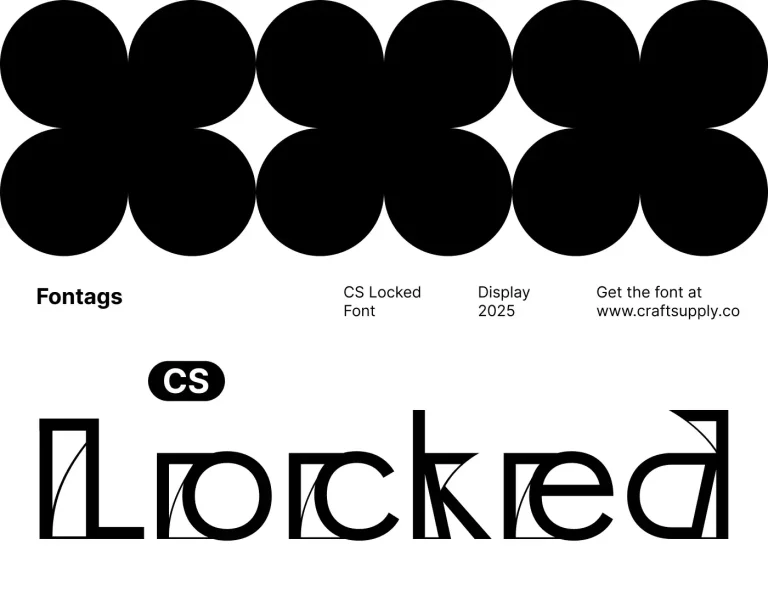
CS Locked
CS Locked is a sophisticated display font that seamlessly blends intricate flourish with Art Deco style, creating an elegant and luxurious impression. This font is characterized by decorative elements, gracefully curved lines, and possibly geometric patterns inspired by the iconic Art Deco…
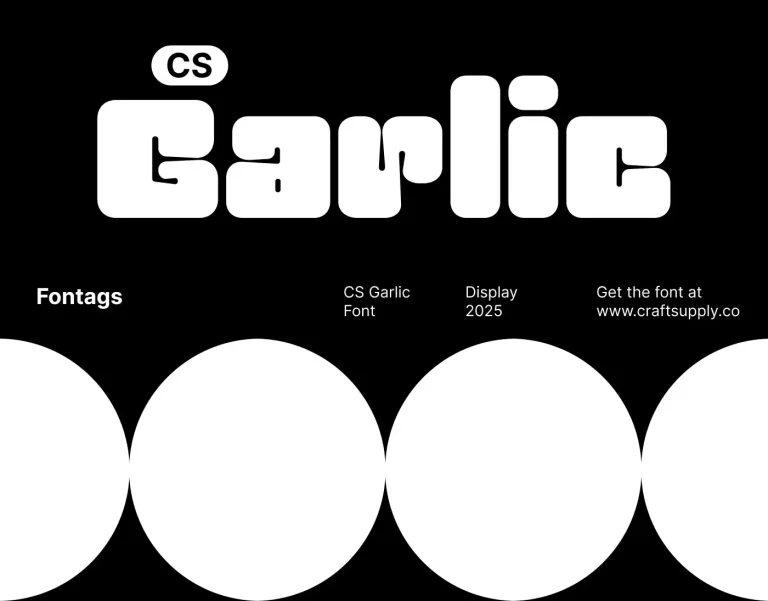
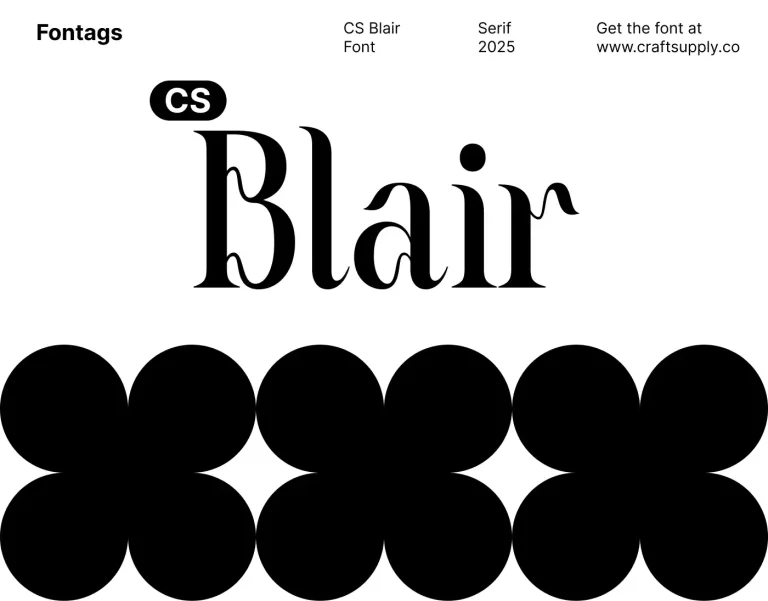CS Garlic
CS Garlic is a vibrant display font featuring bold and funky bubble shapes, designed to inject creativity and cheerfulness into your designs. Its eye-catching characters and prominent bubbles make it perfect for posters, advertisements, and branding that demand strong visual impact. The…
CS Blair
CS Blair is a sophisticated serif font that embodies the timeless beauty of Art Nouveau. With its smooth, curved lines and organic details, this font exudes an elegant impression that enhances any design project. The smooth, flowing lines and intricate details of…
CS Belgia
CS Belgia is a contemporary display font that excels in delivering a professional and clean impression. Featuring sleek and modern letterforms, this font is versatile for a wide range of design applications, including branding, editorial design such as magazines and books, web…
Volney
Volney is a contemporary sans-serif font featuring subtle inktrap details at the ends of its lines, enriching its character and visual appeal. This unique combination makes it an excellent choice for designs seeking a modern aesthetic with distinctive, eye-catching details. The inktrap…
CS Claire Mono
CS Claire Mono is a meticulously designed modern monospaced sans-serif font, meticulously crafted to ensure clarity and elegance across a wide range of applications. Whether used for shopping receipts or programming layouts, its precise shapes and dedication to readability make it an…
CS Agnes
CS Agnes embodies timeless elegance with its classic serif design, perfect for a wide range of projects. Ideal for creating an elegant and classy impression, this font is particularly suited for applications such as logo design, promotional materials, books, and magazine layouts.…
Lovika
Lovika – Contemporary Font is a modern sans serif typeface perfect for professional designs. With its clean lines and contemporary style, it ensures clarity and sophistication, making it ideal for corporate branding, presentations, and web design. With its sleek and modern design,…
Clorise
Clorise – Display Serif Font is a bold typeface that exudes a classic vibe with its strong and prominent style. Ideal for designs seeking an elegant and distinctive impression, this font is perfect for titles, posters, and other promotional materials that require…
Brivane
Brivane – Bold Font is a modern serif typeface featuring thick strokes and a retro vibe. Its bold design is perfect for posters, logos, and creative projects, adding a nostalgic touch to both digital and print media. With its strong and distinctive…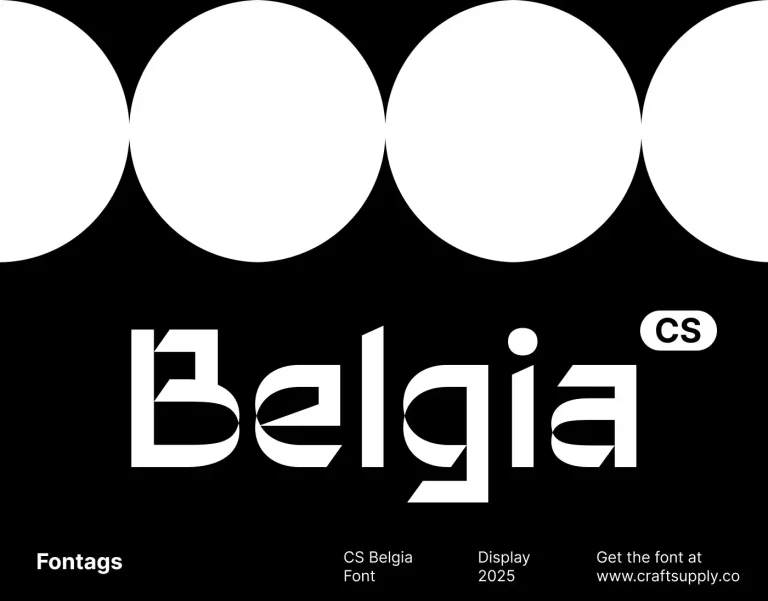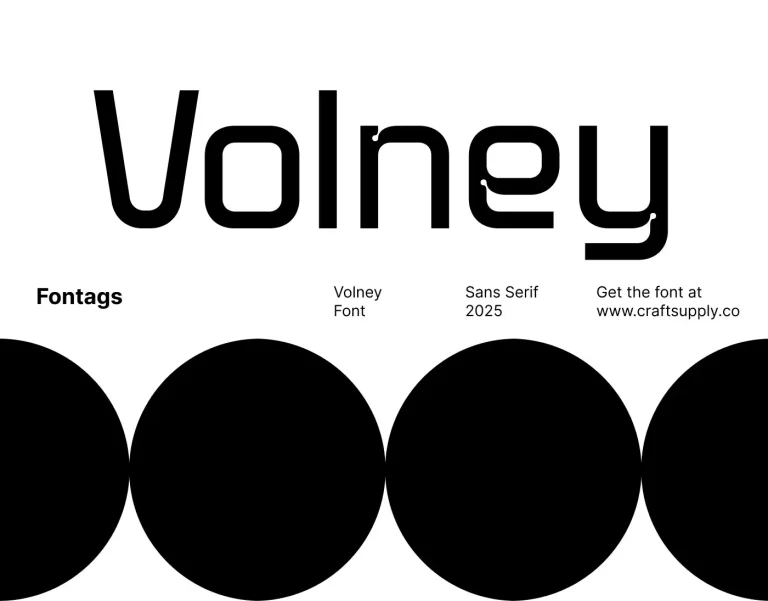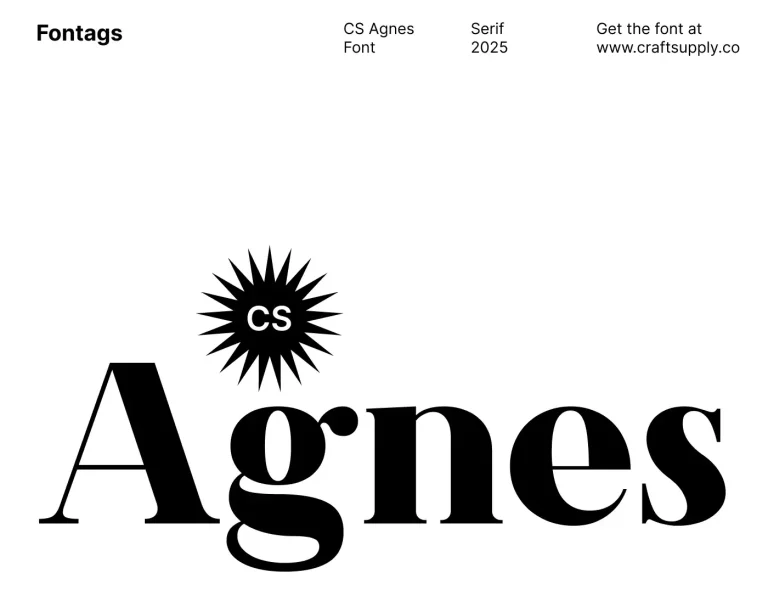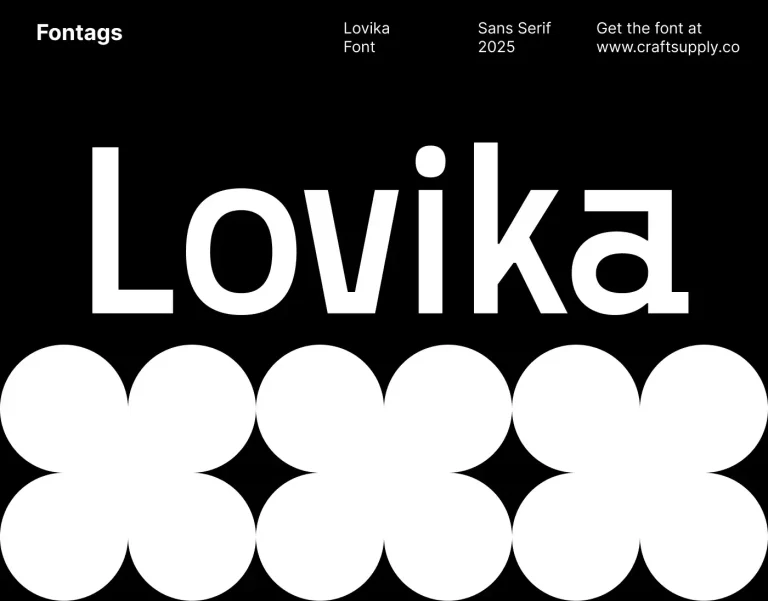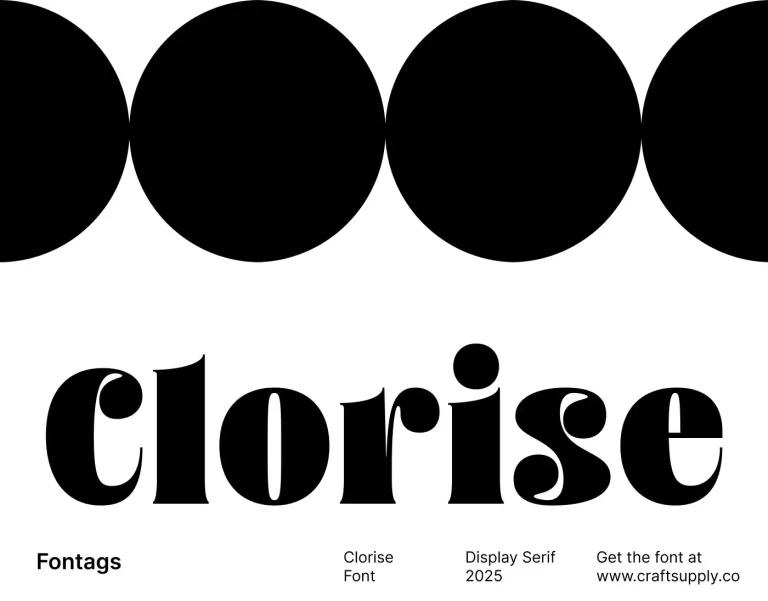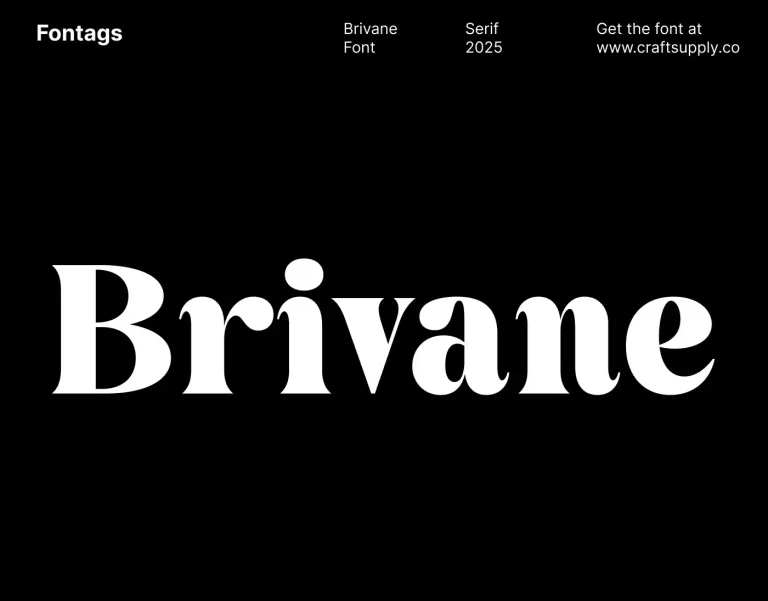